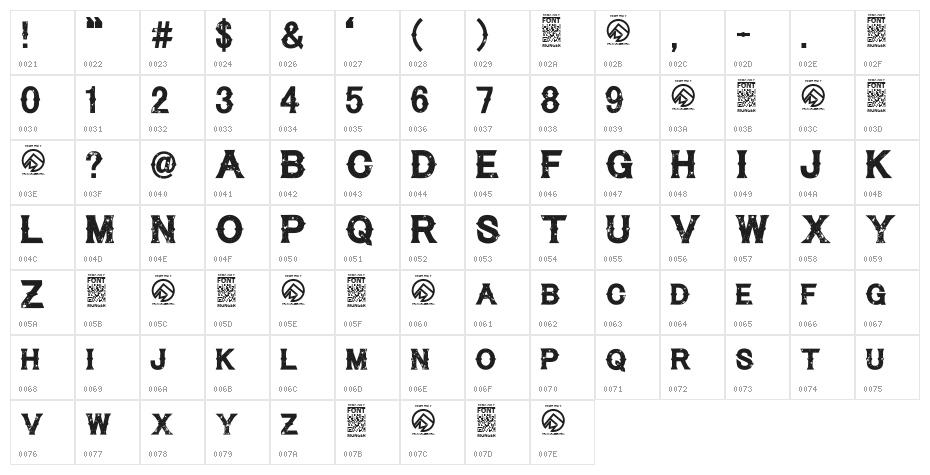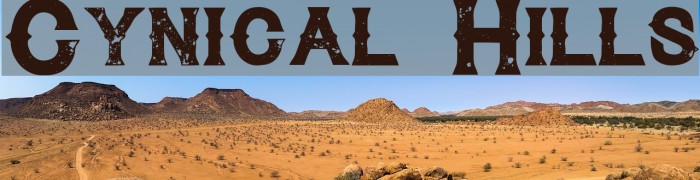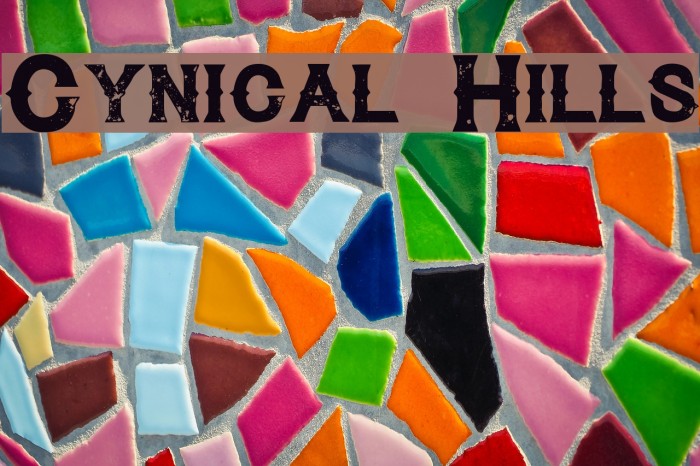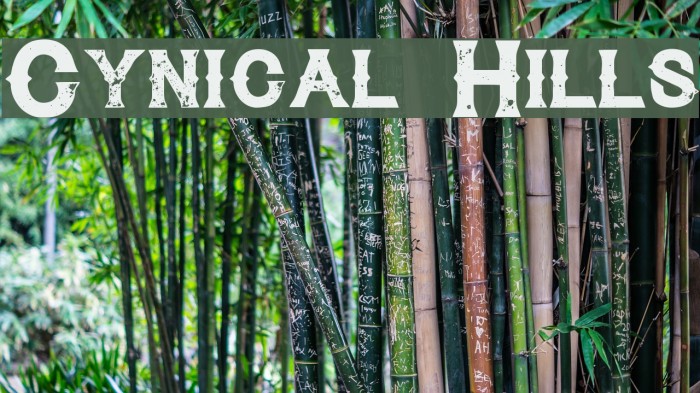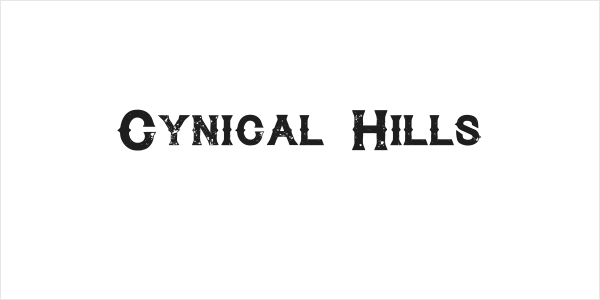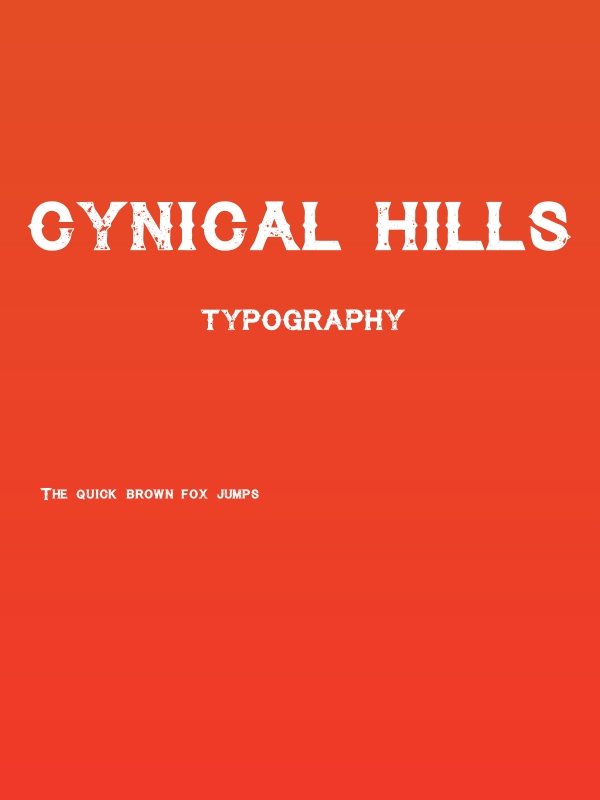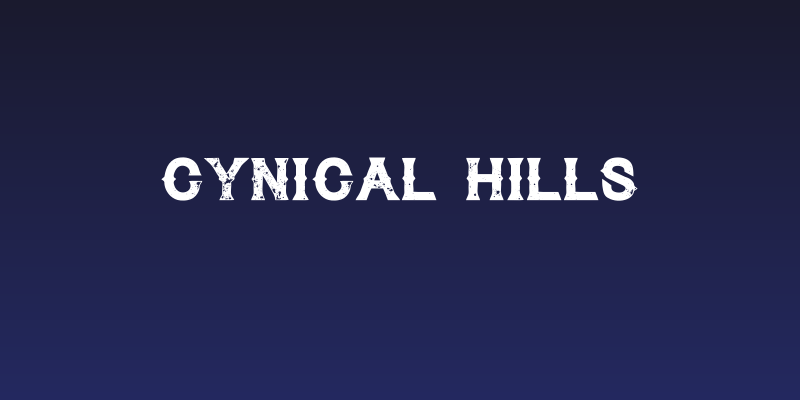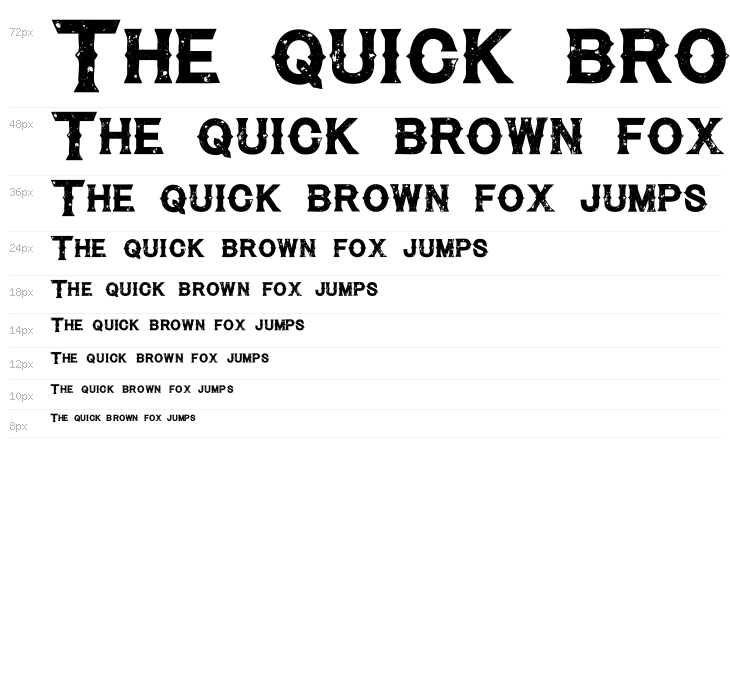
Cynical Hills Font
Cynical Hills Description
This font features a bold and distressed style, characterized by its rough, textured appearance that gives it a grunge or worn-out look. The uppercase letters are prominent and impactful, while the numerals and special characters maintain the same rugged aesthetic. The font's unique style makes it stand out, with each character appearing as if it has been weathered over time, adding a sense of history and character. The irregular edges and varying thickness within each letter contribute to its distinctive, edgy feel.
| Overall Style | Vintage, Grunge |
| Use Case | Logos, Posters, Headlines |
| Proposed Projects | Ideal for projects requiring a vintage or rebellious feel, such as band posters, album covers, or edgy branding materials. |